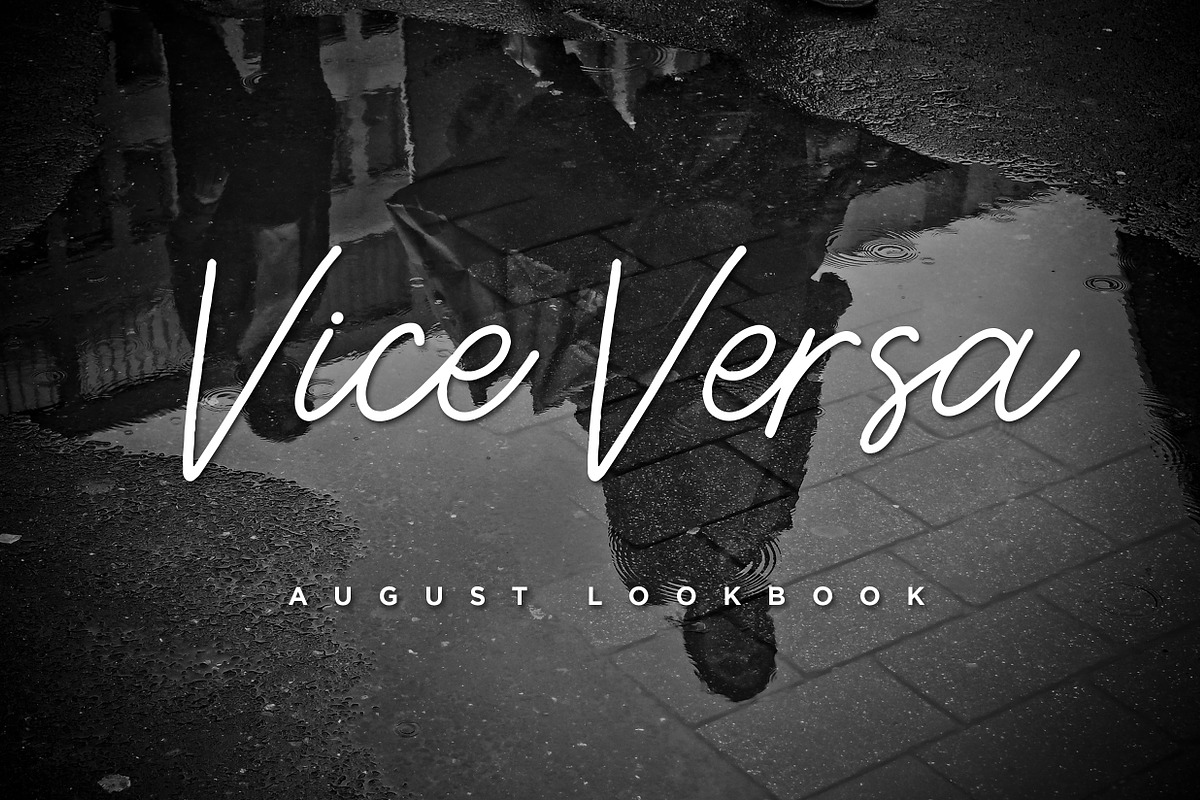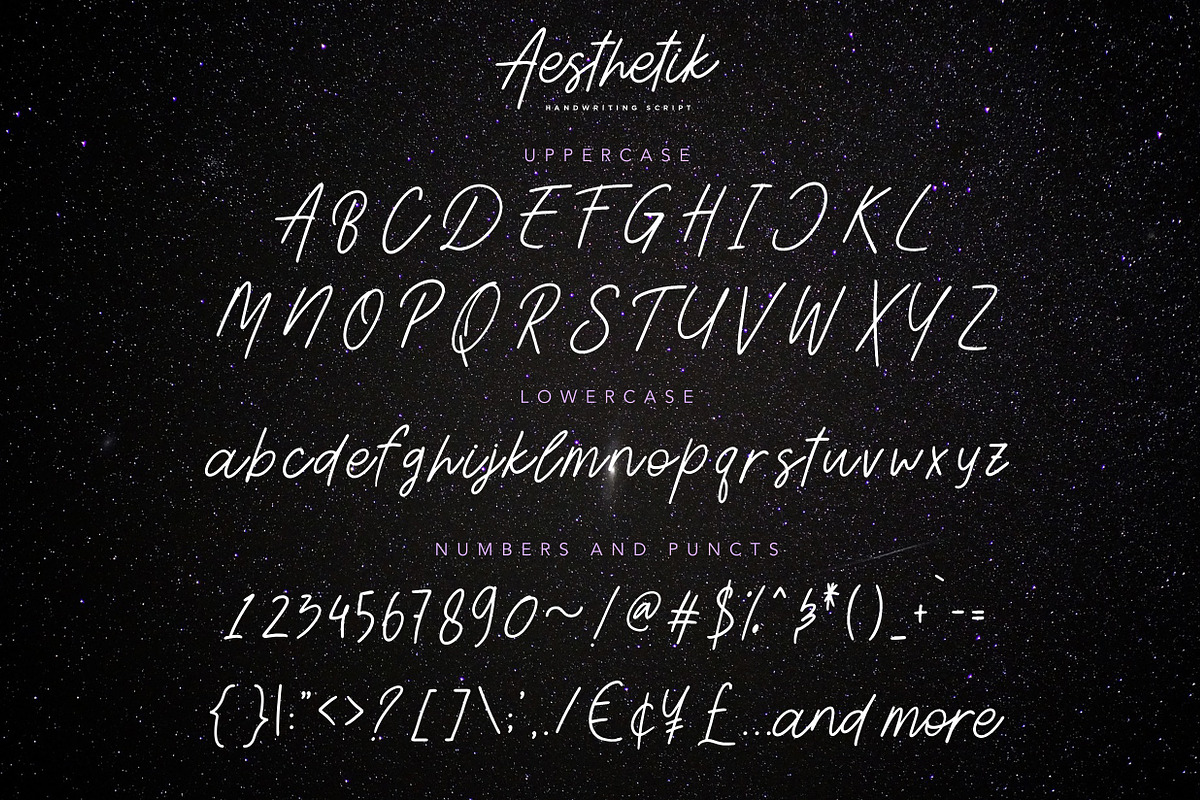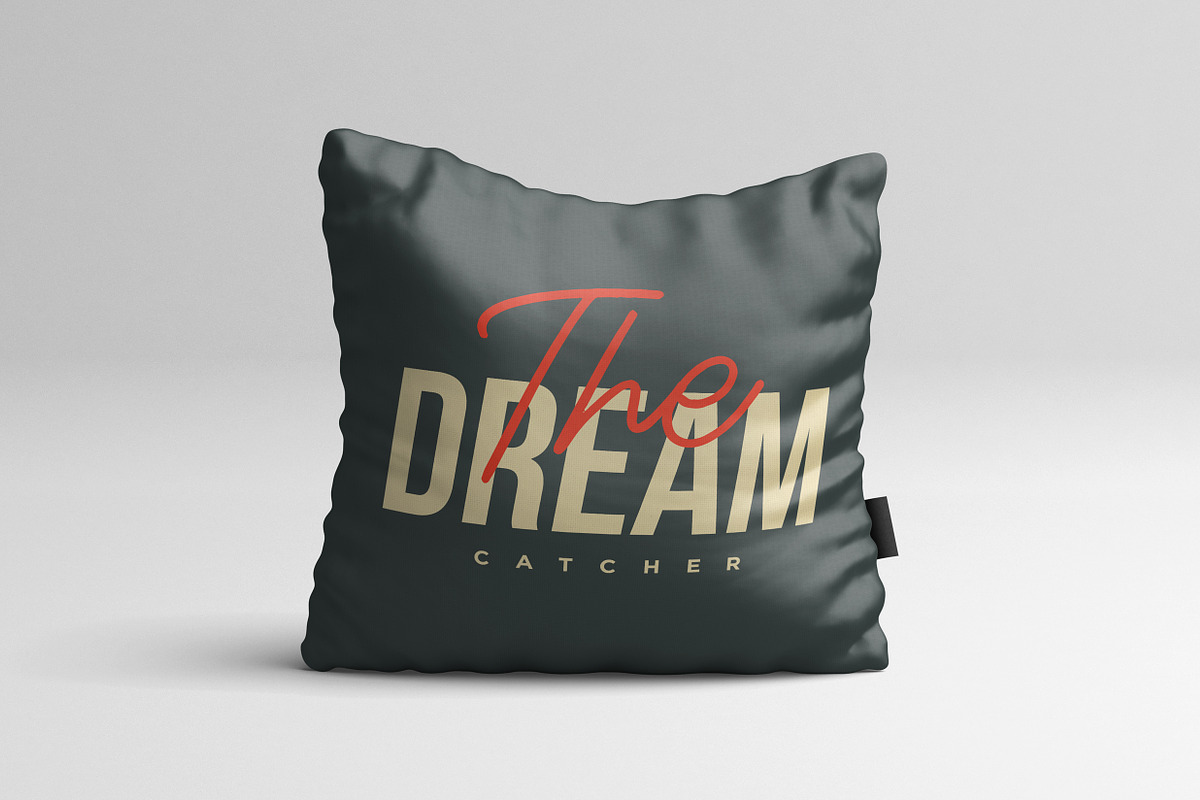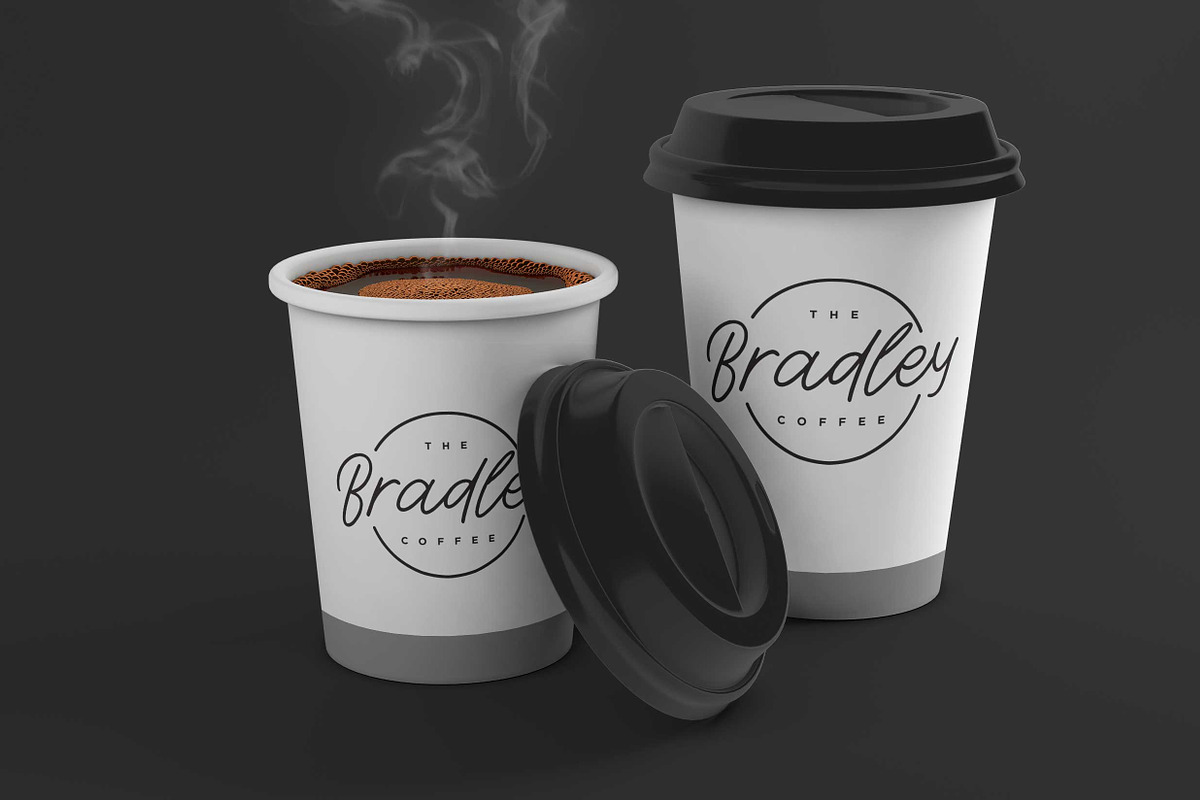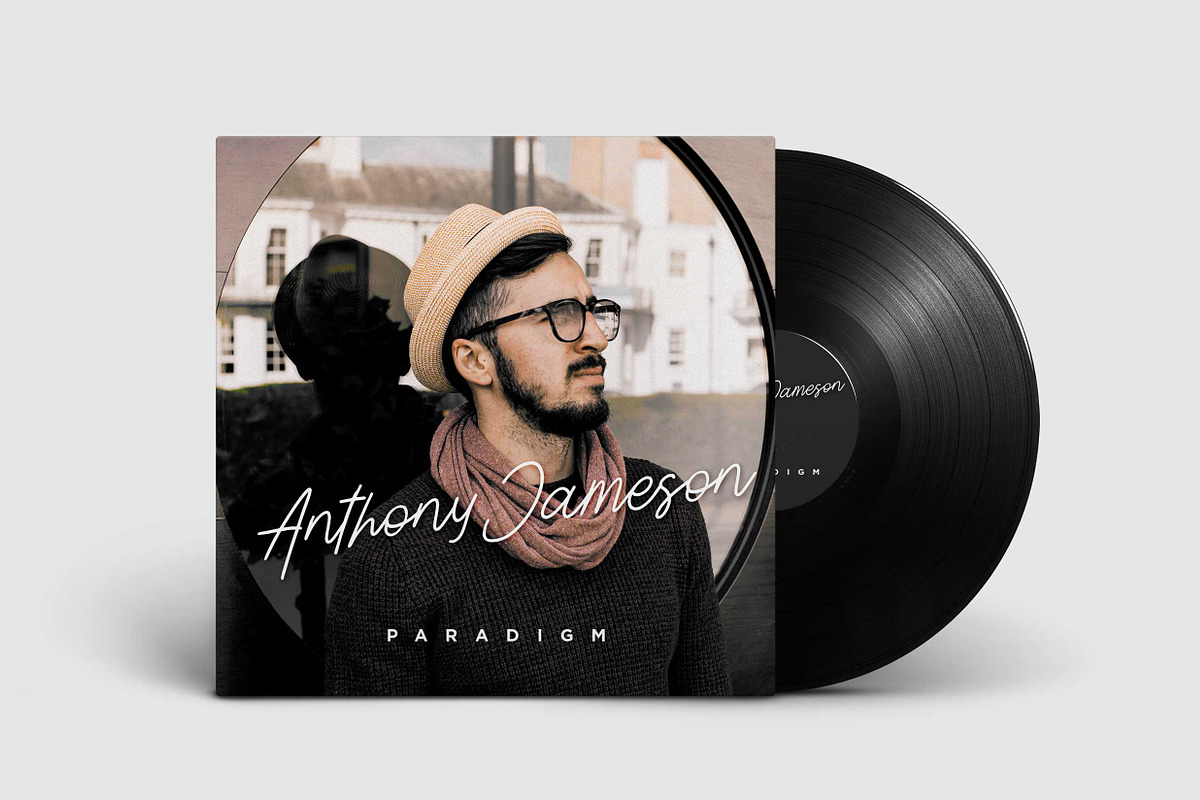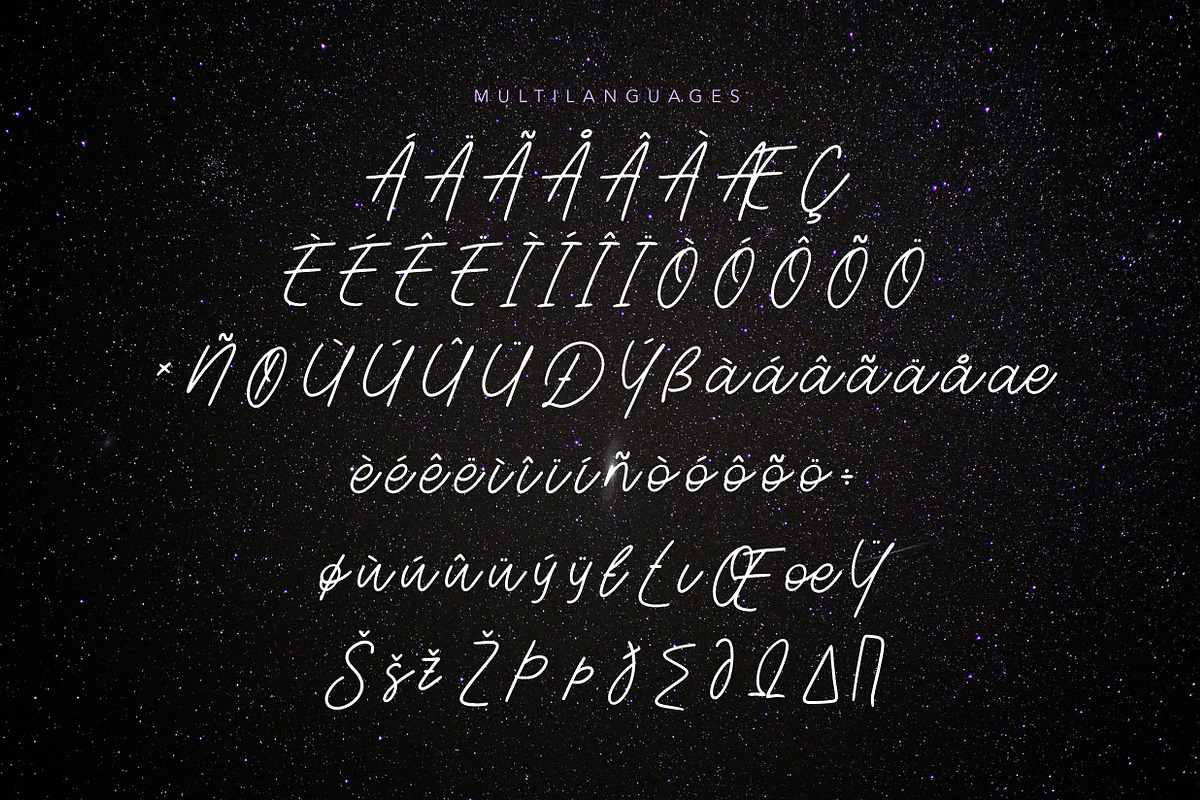
Aesthetik | Handwriting Font
A handwriting font with monoline style. Aiming the easy usage for any kind of profession, it didn't need any special skill to use this font. So i can say that it will perfectly fit for any of your personal or commercial branding projects, or just an auto-chic for your stuff. That's what Aesthetik - Handwriting Font born from.
Language Support : Danish, Dutch, English, Filipino, Finnish, French, Galician, German, Icelandic, Indonesian, Irish, Italian, Norwegian Bokmål, Norwegian Nynorsk,Portuguese, Romansh, Spanish, Swahili, Swedish, Swiss German, if you doubt with it please type it out in the text box below, i hope it will support your language too
Aesthetik | Handwriting Font by Ian Irwanwismoyo fits naturally into Branding, posters, packaging, typography.